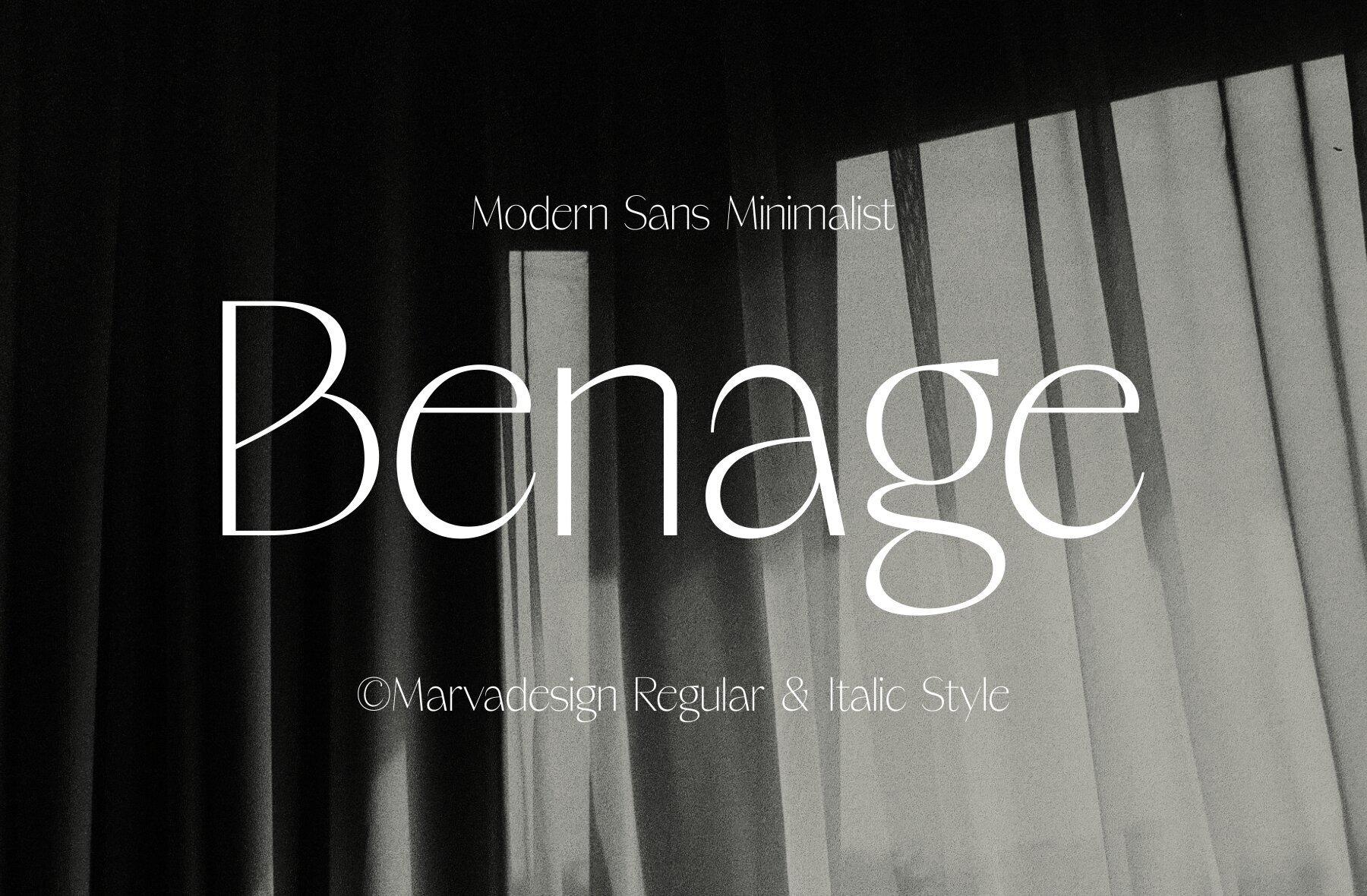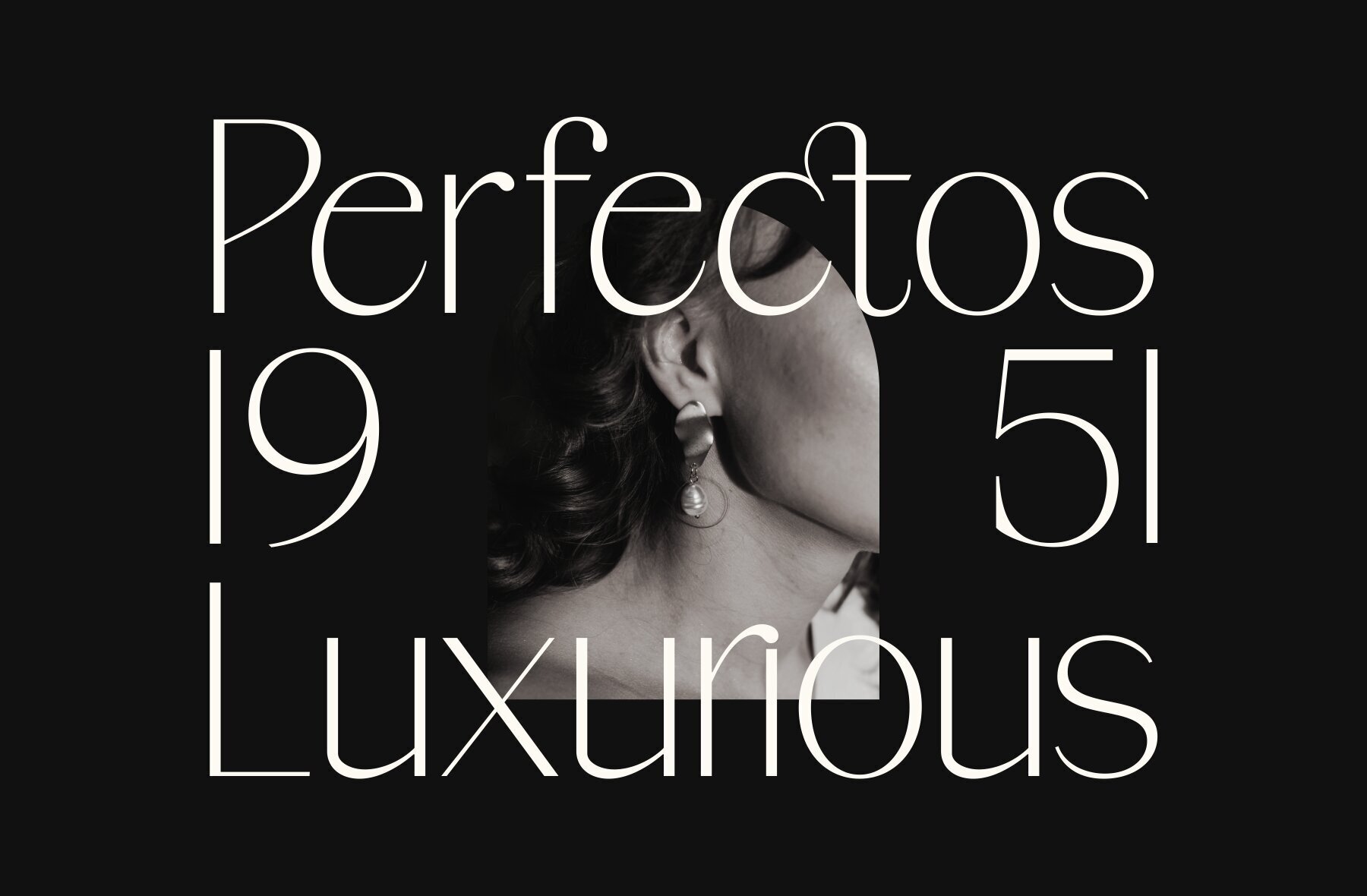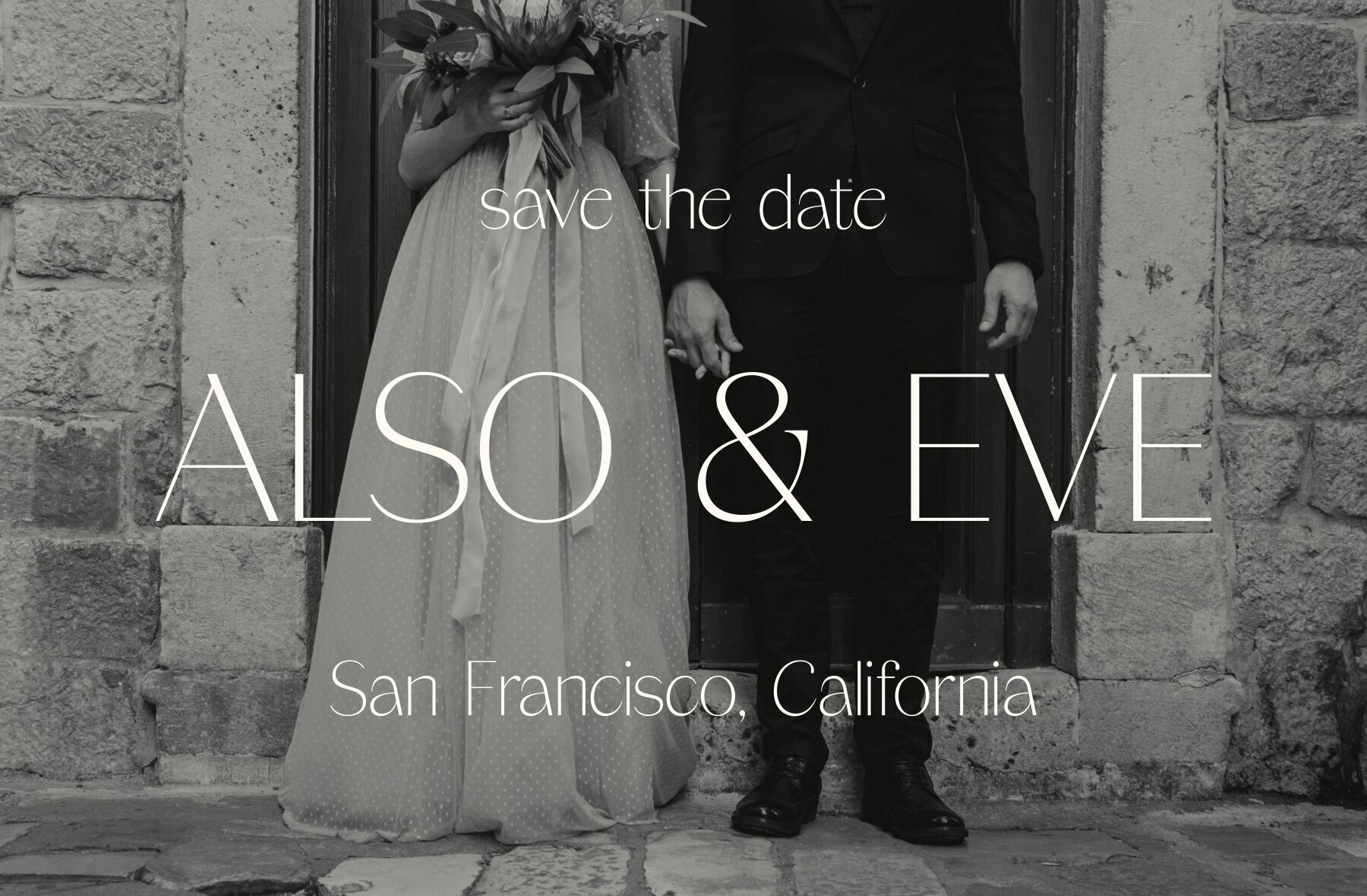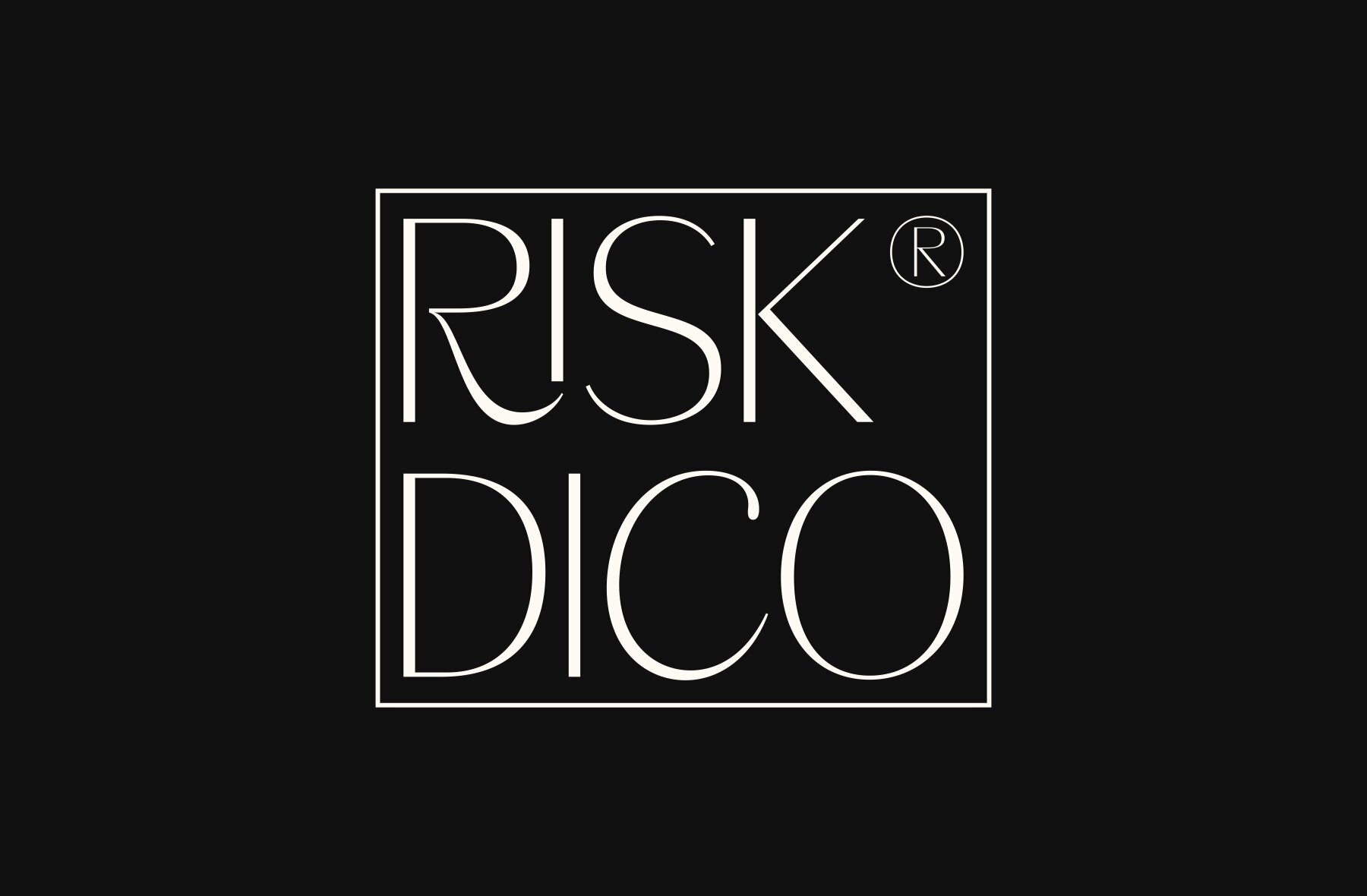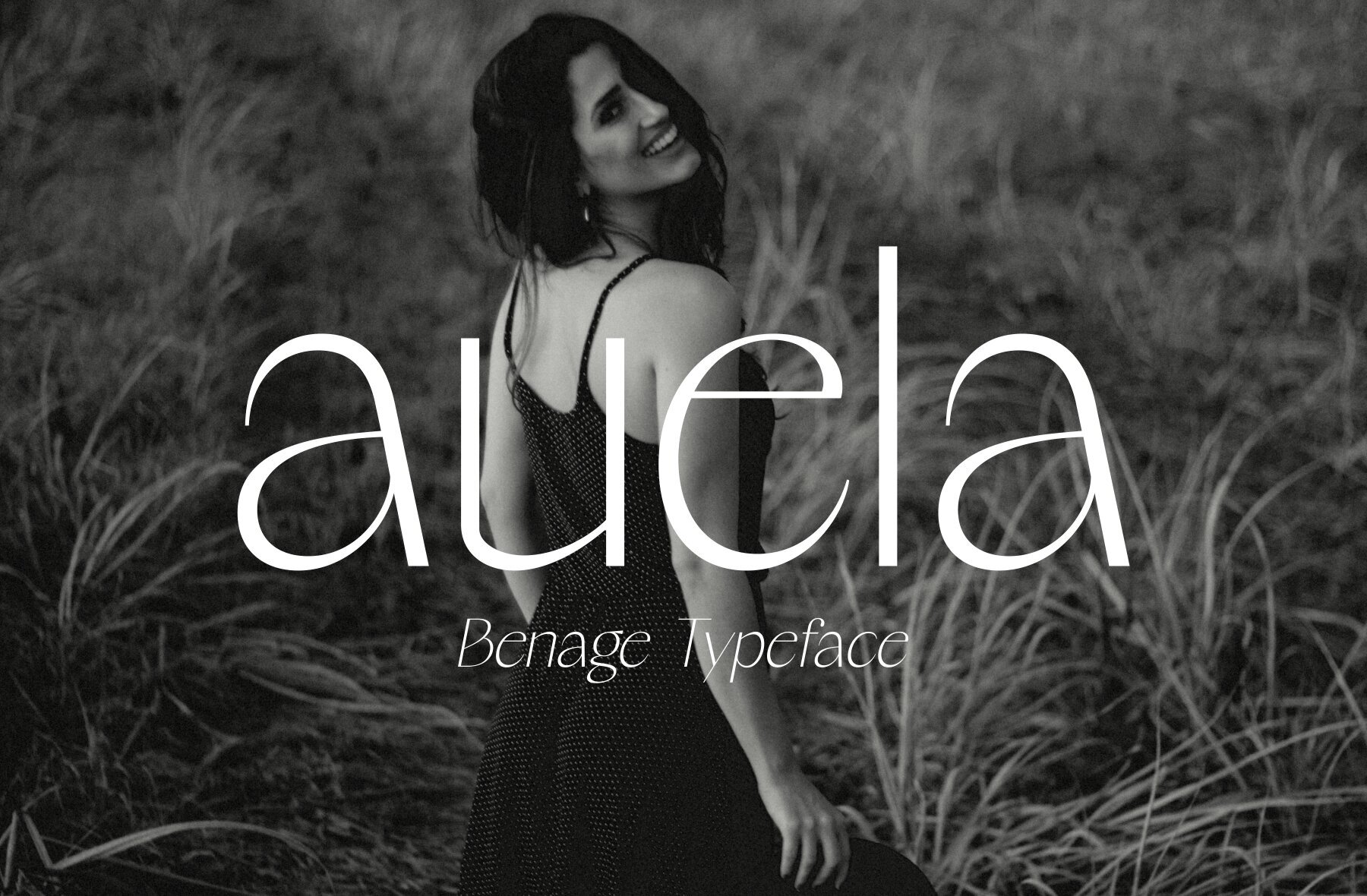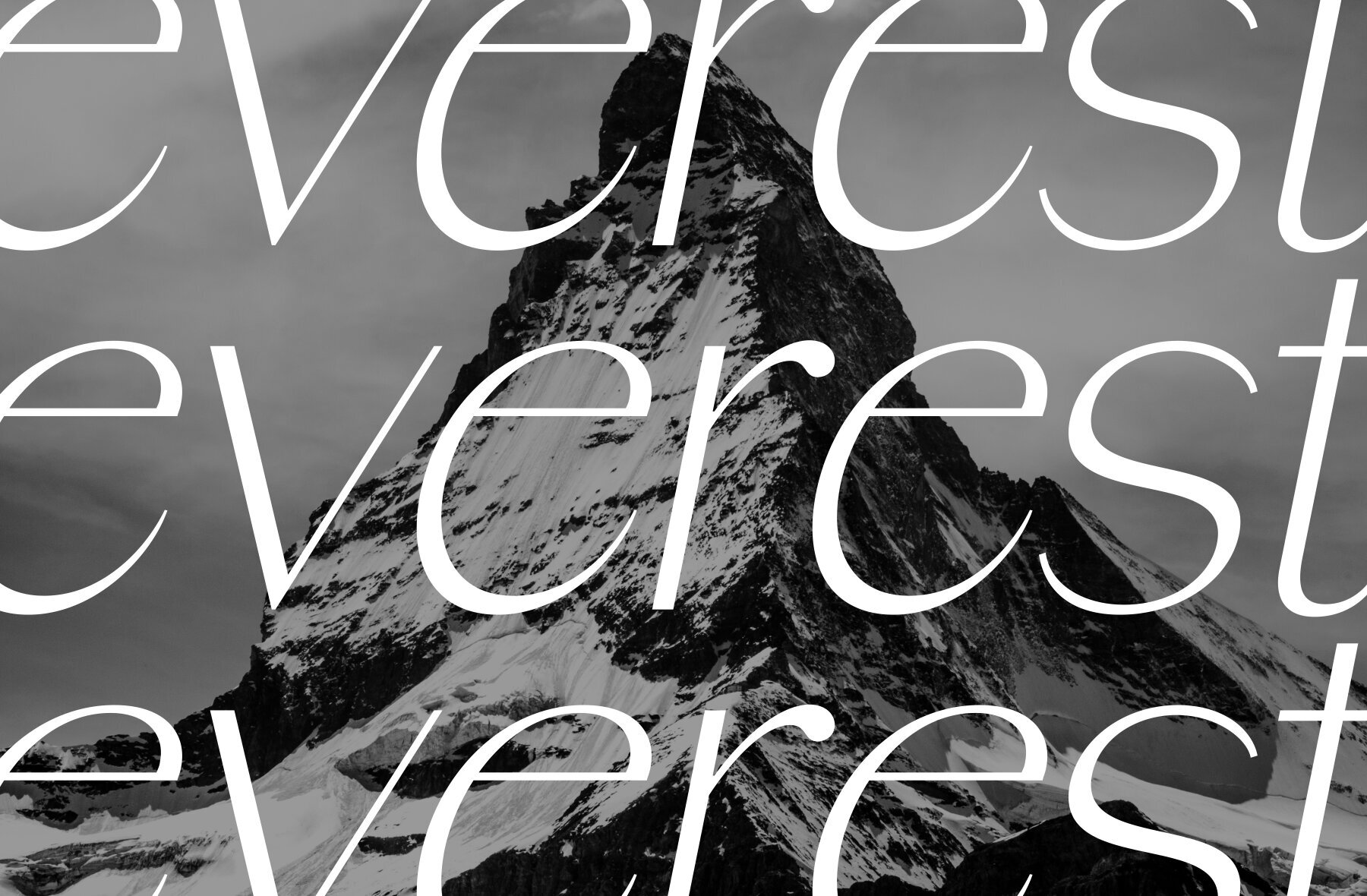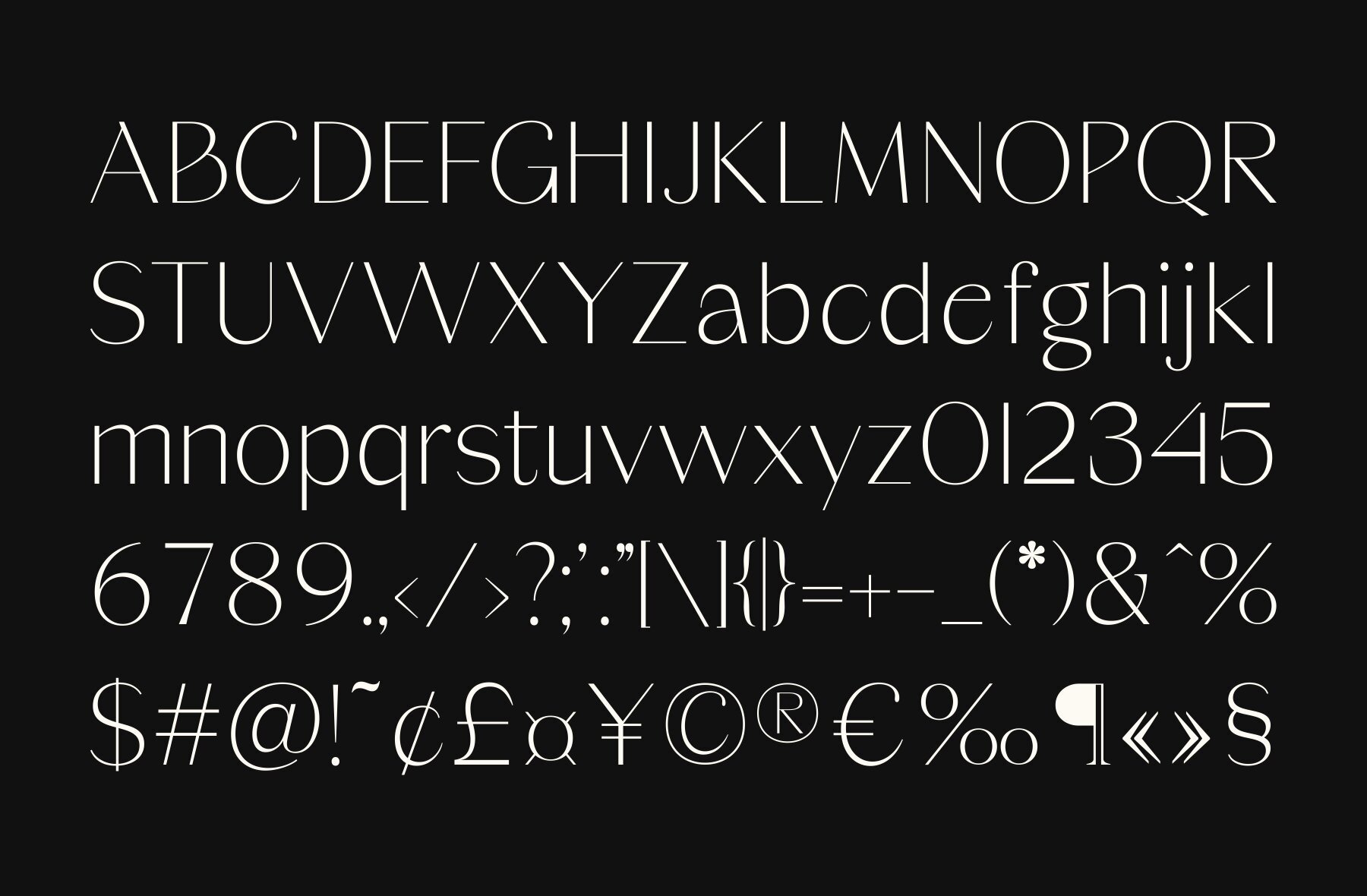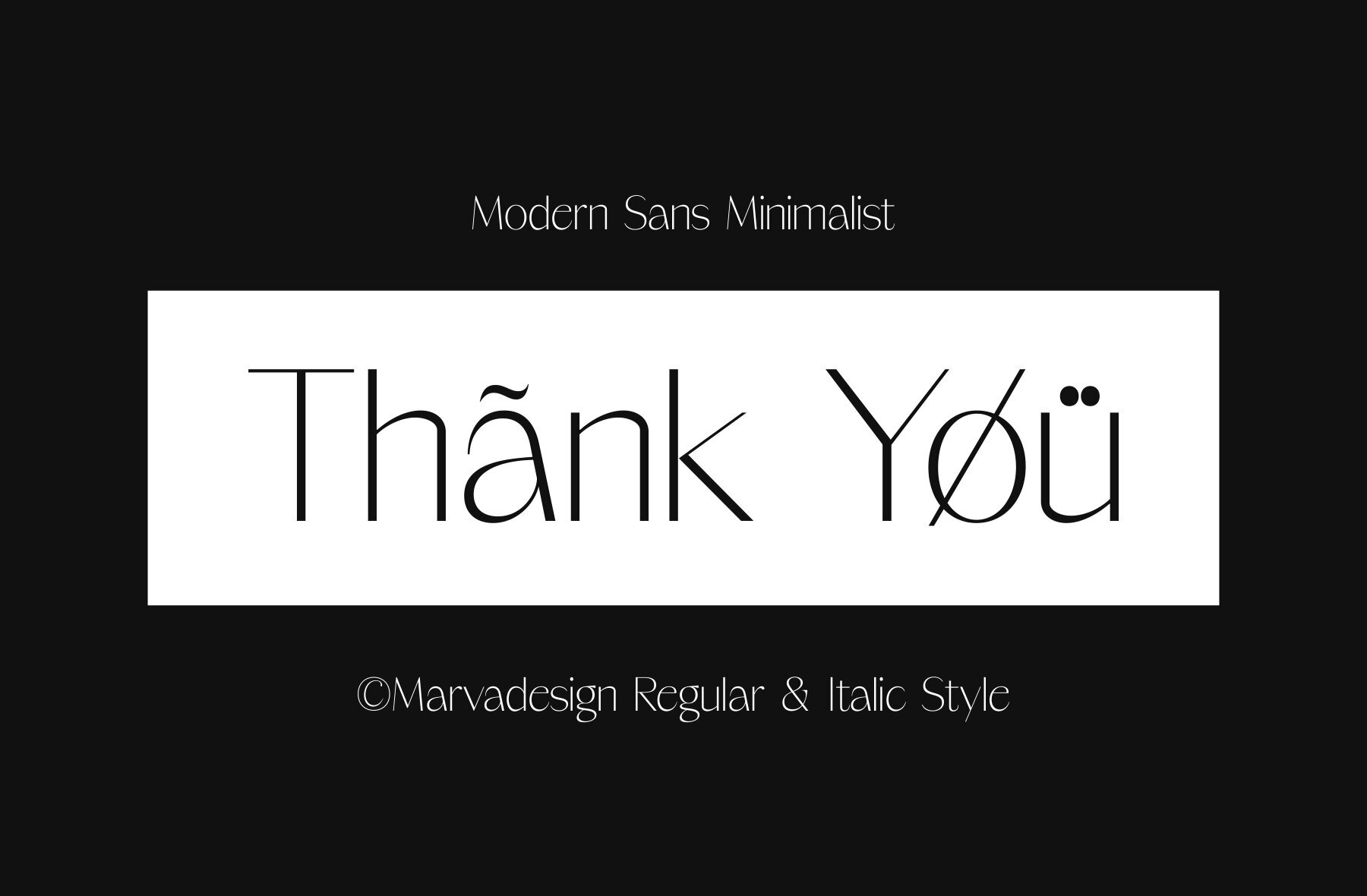
Benage Font
Benage is an elegant sans serif typeface crafted with a minimalist approach. This font features thin and clean characters, making it an excellent choice for luxury products. Its smooth lines and balanced proportions provide a refined and modern aesthetic. Ideal for luxury product branding, sophisticated graphic design projects, and both print and digital media, Benage delivers a touch of class and professionalism.
With its sleek design, Benage enhances readability while maintaining an upscale visual appeal. Perfect for high-end branding initiatives, this typeface is versatile enough for a range of applications including logos, packaging, editorial layouts, and web design. Embrace the modern elegance of Benage to create striking, sophisticated designs that stand out.